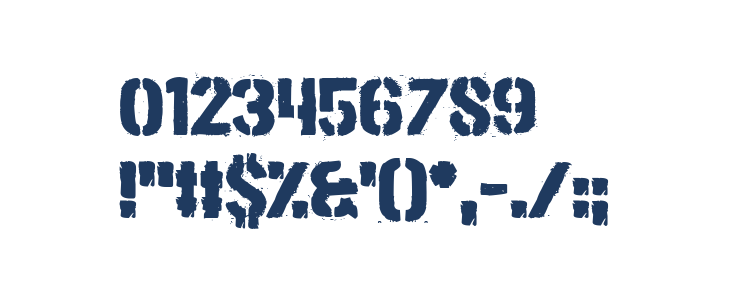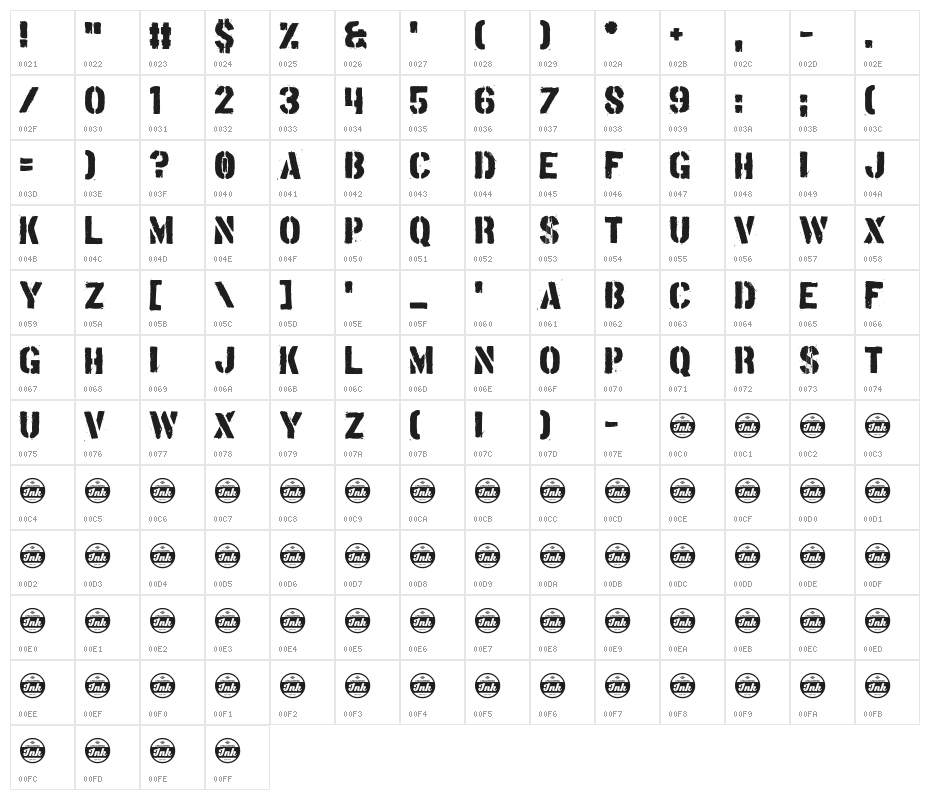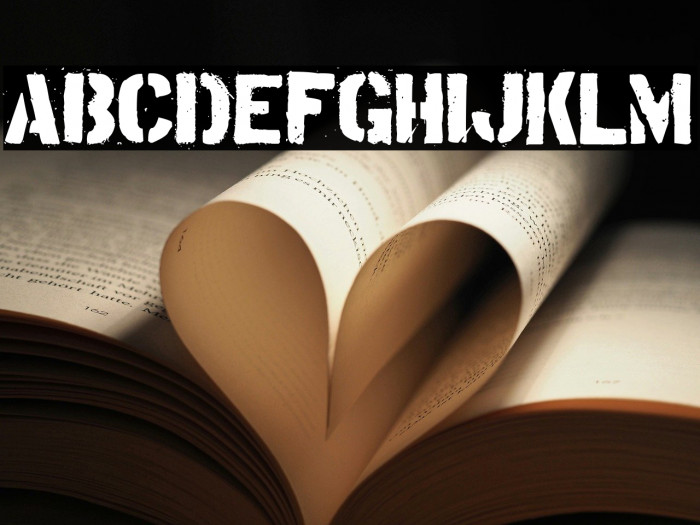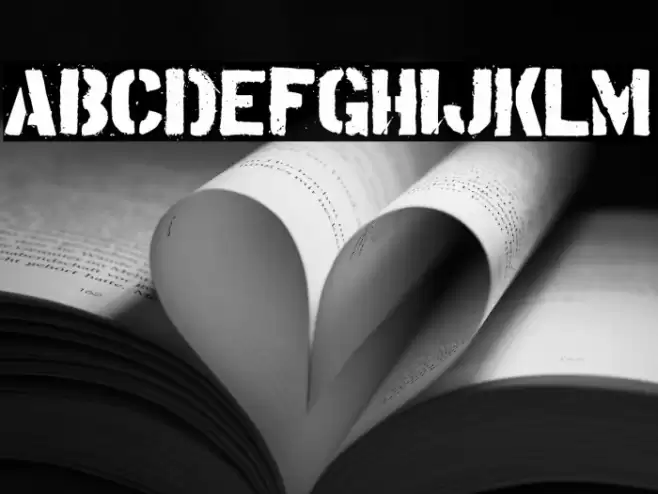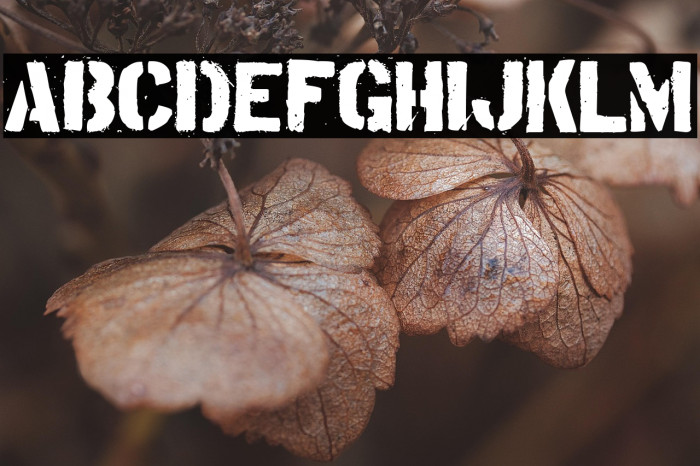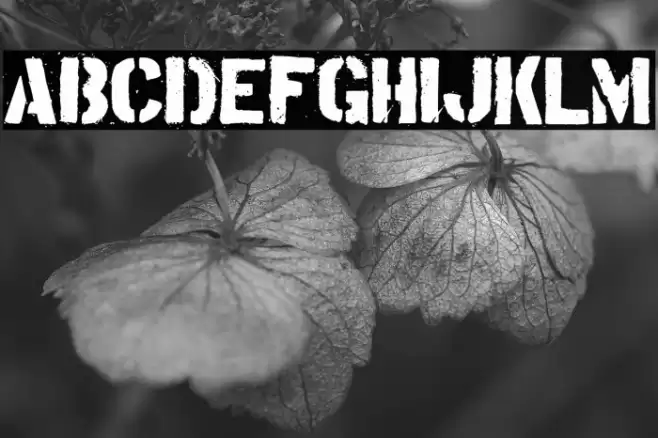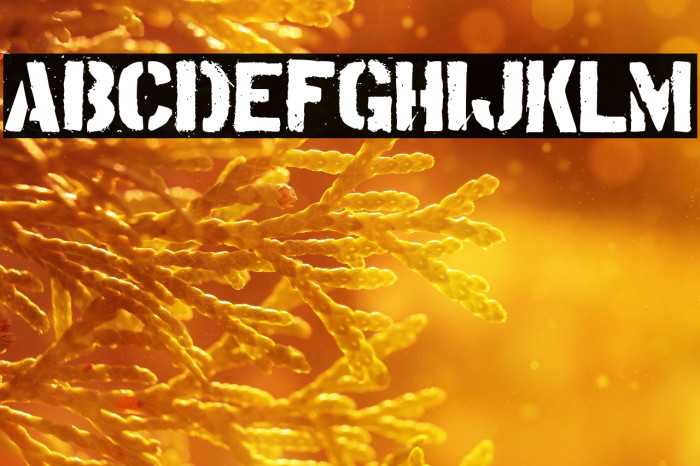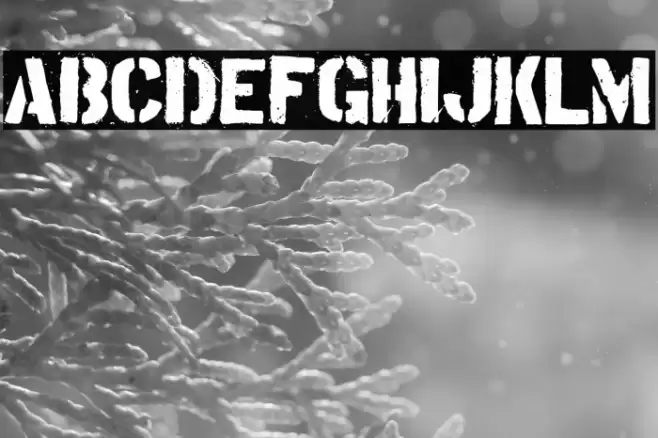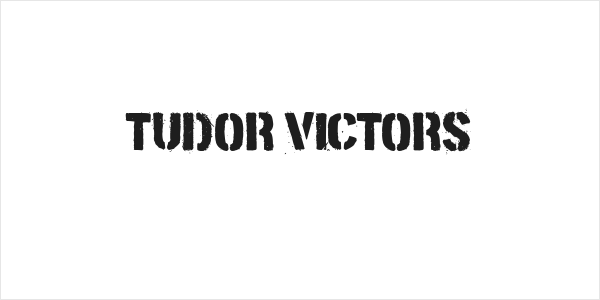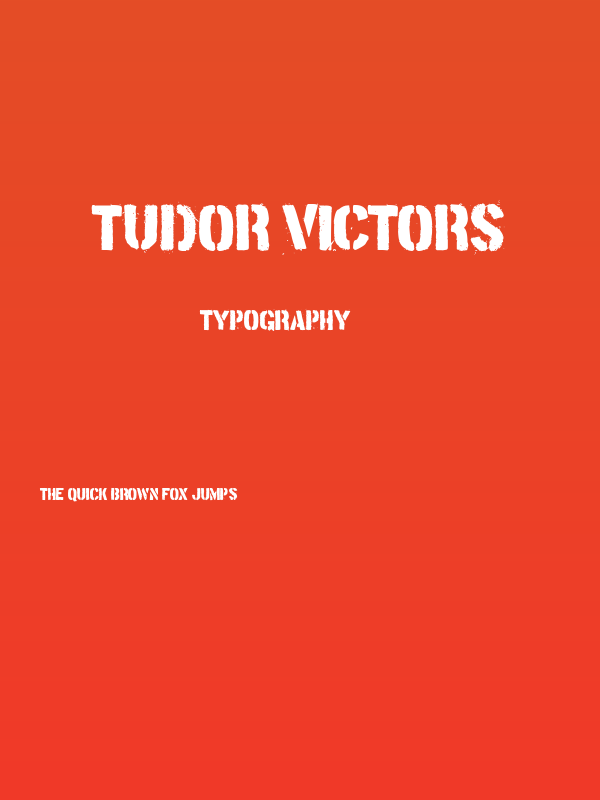
Tudor Victors Font
Tudor Victors Description
This font features a rugged, distressed appearance, reminiscent of stenciled lettering with a weathered, vintage feel. The characters are bold and impactful, with irregular edges that suggest a hand-painted or stamped effect. The uppercase and lowercase letters maintain a consistent style, while the numerals and special characters follow the same textured pattern. This font's unique style makes it ideal for projects that require a strong, industrial, or retro aesthetic.
| Proposed Projects | Ideal for posters, album covers, branding for vintage or industrial-themed products, and any design needing a bold, gritty aesthetic. |